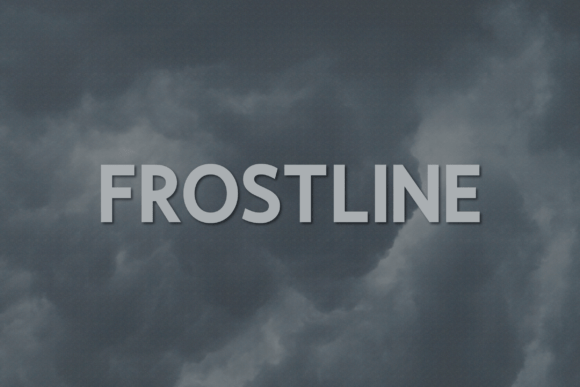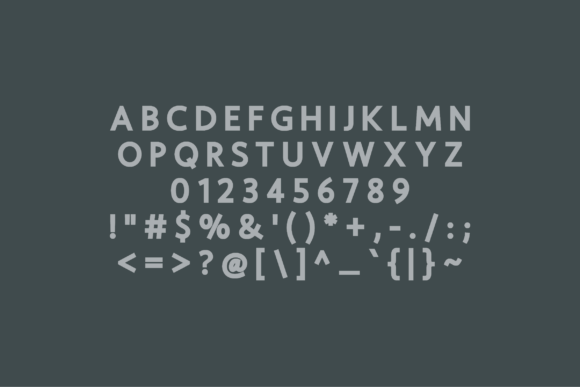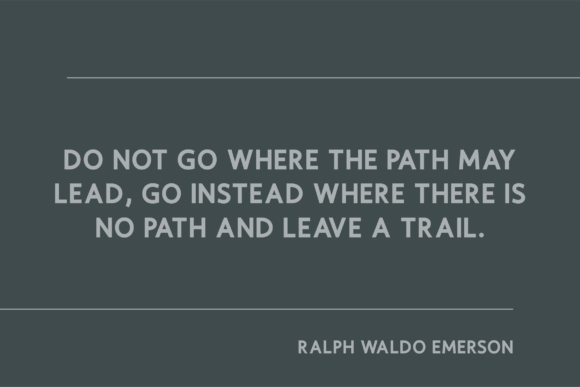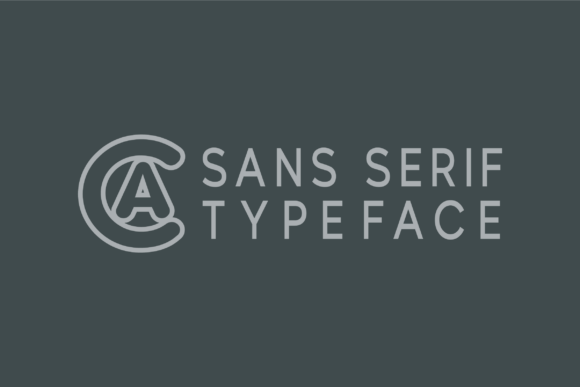
You’re staring at a blank screen, the cursor blinking, as you try to capture the essence of your brand’s digital identity. The right font can make or break the first impression, and that’s where Frostline Font comes in – a crisp and contemporary sans-serif typeface designed to deliver clarity, structure, and subtle sophistication.
With its clean lines, even stroke weights, and strong geometric base, Frostline Font is the perfect fit for digital interfaces, branding, editorial layouts, and professional print design. Its versatility and space efficiency make it an invaluable asset for designers looking to create modern, tech-forward branding, and minimalist compositions that exude refinement and confidence.
Whether you’re crafting a logo or building a clean website layout, Frostline Font brings a balanced modernism to every project, giving your designs a cool, confident voice that sets them apart from the rest.
Frostline Font Key Features
- Unique Characteristics: Frostline Font features a unique blend of modern and vintage elements, with subtle texture and intricate details that set it apart from other fonts.
- Scalability: Frostline Font is highly scalable, allowing it to be used in a variety of design applications, from small text to large headings and titles.
Frostline Font Review
I recently had the chance to work with the Frostline Font, and overall, I’m quite impressed with its unique charm. Here are some of the things that caught my attention: ✨
- Whimsical feel: Frostline has a playful, wintery vibe that’s perfect for seasonal designs or projects that need a touch of magic.
- Good legibility: The font is clear and easy to read, making it a great choice for body text or headlines.
- Customization options: Frostline comes with a range of ligatures and swashes that can add an extra layer of personality to your designs.
However, there are a few areas where Frostline falls short: ⚠️
- Limited font sizes: Frostline can become pixelated when used at very small font sizes, which may be a concern for some designers.
- No bold or italic weights: If you’re looking for a font with more versatility, Frostline may not be the best choice.
Overall, I think Frostline is a great addition to any designer’s toolkit, but it’s essential to be aware of its limitations. If you’re looking for a unique, whimsical font that’s perfect for seasonal designs or projects that need a touch of magic, Frostline is definitely worth considering.
Tips for Getting the Most Out of Frostline Font
1. Use Frostline font in conjunction with bold or italic styles to add emphasis to your text.
2. Experiment with different font sizes and colors to create visual interest.
3. Pair Frostline font with other fonts to create a unique and eye-catching design.
Frostline font is commonly used for:
1. Creative and artistic designs.
2. Branding and logo design.
Q: Is Frostline Font available in Cyrillic and Greek scripts?
Yes, Frostline Font supports multiple languages, including Cyrillic and Greek scripts. The font includes a wide range of language support, covering over 100 languages, making it a versatile and inclusive choice for designers working on global projects.